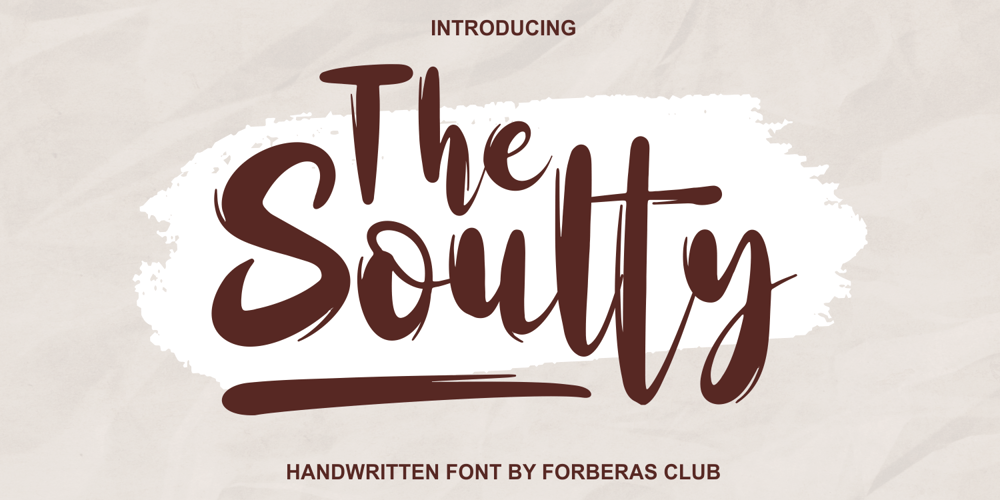
The Soulty Font Family was designed by ANGGI HERMAWAN and published by Forberas Club. The Soulty contains 1 styles and family package options. The Soulty made for something interesting and excited, or you can make your wedding invitation with this beautiful font and you can use this font for your party or cute moment. Cheers